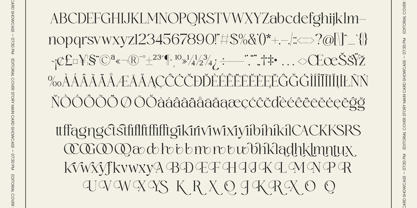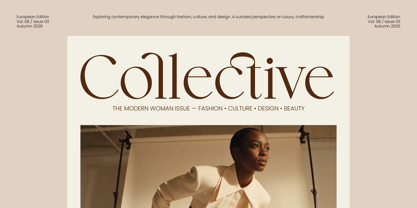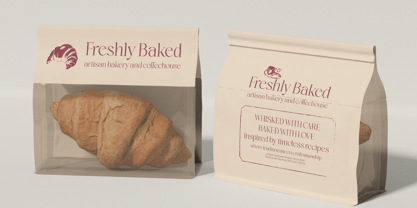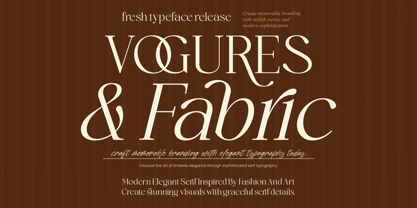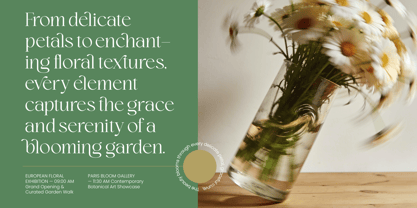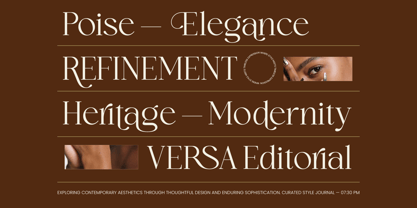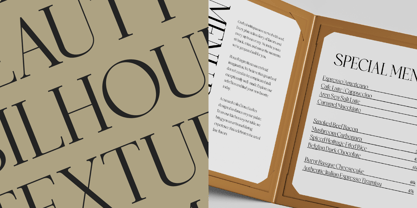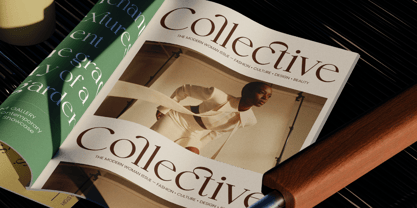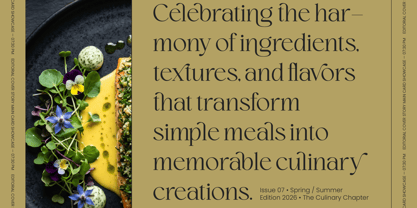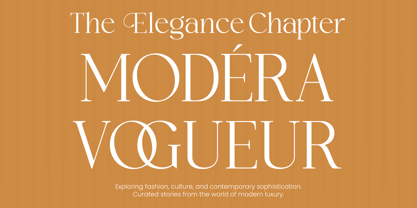
Vogures Fabric
A família de fontes Vogures Fabric foi desenhada por Heru Utama Putra e publicada pela Timelesstype Studio. Vogures Fabric contém 2 estilos e opções de pacote familiar. Saiba mais sobre esta família
Elevate your brand’s visual identity with a typeface that embodies the pinnacle of sophisticated design. Vogures Fabric – Modern Elegant Serif is a masterpiece of high-contrast letterforms and graceful curves, meticulously crafted to resonate with the fashion and art industries. This typeface strikes a perfect balance between timeless elegance and modern aesthetics, ensuring that every headline captures attention with professional poise. By integrating Vogures Fabric – Modern Elegant Serif into your creative workflow, you command a sense of luxury and prestige that is essential for high-end market positioning.